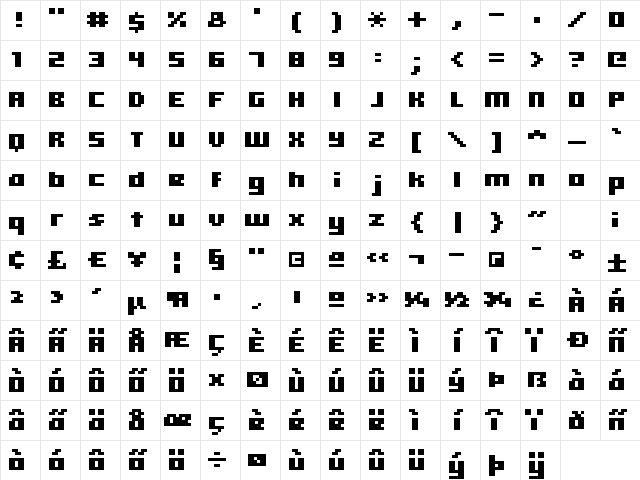
hooge 05_66 Regular Free Font
hooge 05_66 Regular
hooge 05_66 Family
Complete hooge 05_66 Regular glyph index. Displaying only characters natively supported by hooge 05_66 Regular font.
Design Context for hooge 05_66
hooge 05_66 is a composed and adaptable typeface that performs quietly and consistently across a wide range of design contexts.